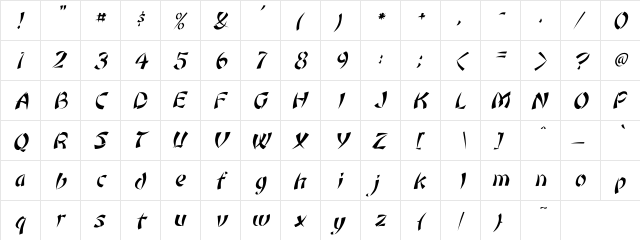
Rickshaw Italic Italic
Design Context for Rickshaw Italic Typeface
Rickshaw Italic is a composed and adaptable typeface that performs quietly and consistently across a wide range of design contexts. The dynamic lean of this cut emphasises speed and emphasis in any layout.
Pro Tip: Try Rickshaw Italic for annotation and caption copy alongside an upright companion — the contrast in angle creates a dynamic but ordered typographic system.